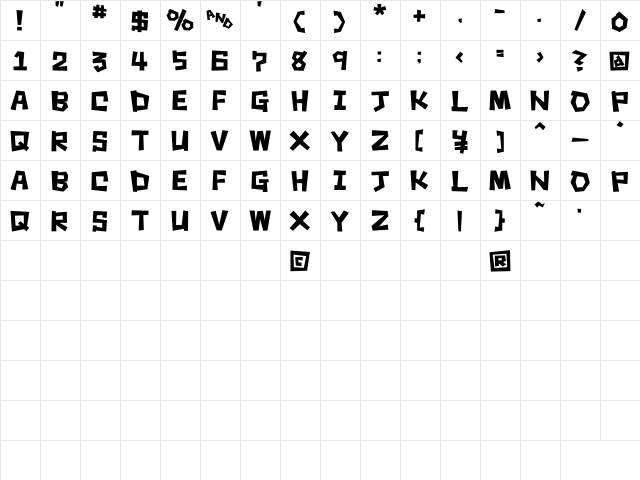
Square rough Regular
Design Context for Square rough Typeface
Square rough embraces imperfection — its rough, textured character adds raw authenticity to designs that want to feel lived-in and unconventional.
A strong fit for alternative music projects, graffiti-adjacent design, and anything that deliberately resists polish.
Pro Tip: Use Square rough at larger sizes where the texture and irregularity of each letterform can be clearly seen — it loses its character at small sizes.